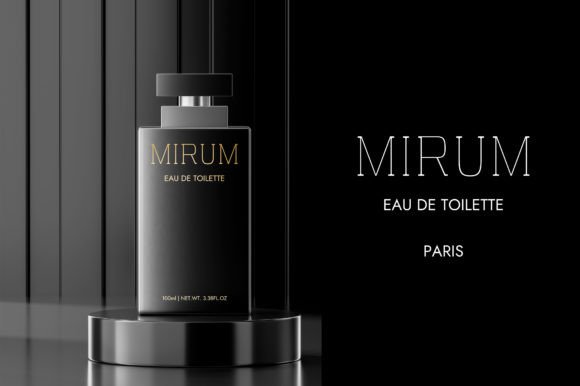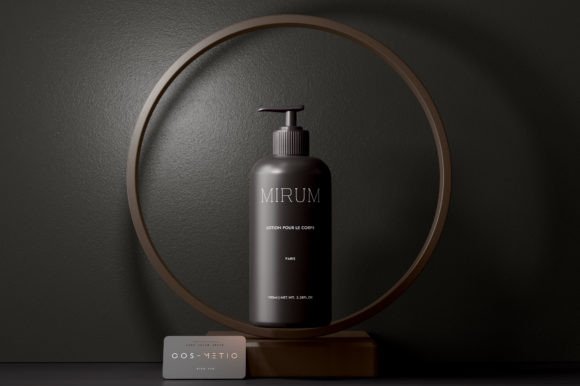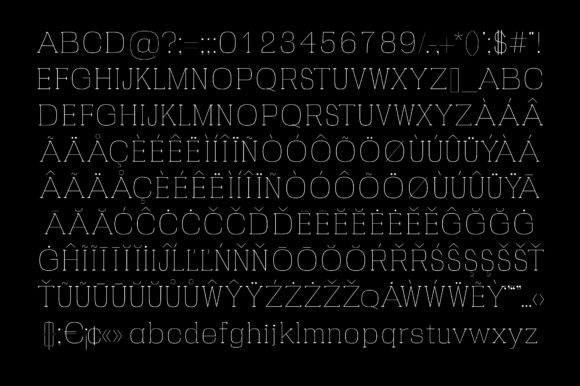
MIRUM FONT SPECIMEN
Mirum, as the name suggests, is a wonderful, strange, and remarkably thin slab serif typeface. Its unique glyphs construction renders it a valid choice when it comes to designing a serious project which requires a delicate touch, clean look, and elegant note. Use it in your Packaging design, perfume design, or fashion design presentation, and you will notice how much powerful it ports inside every glyph.